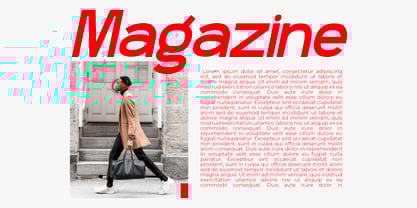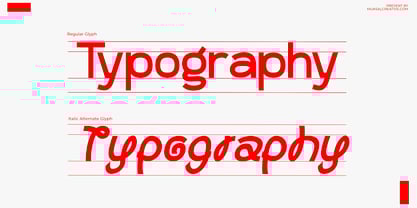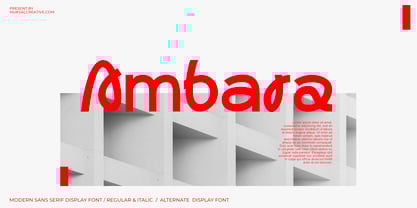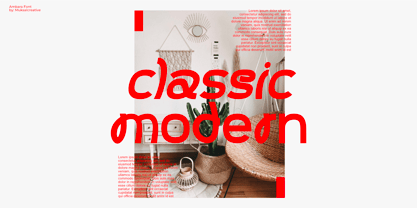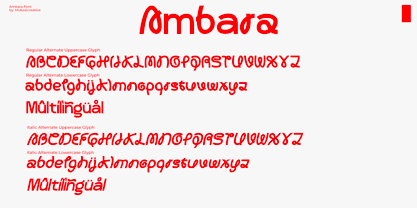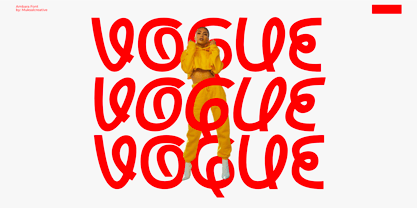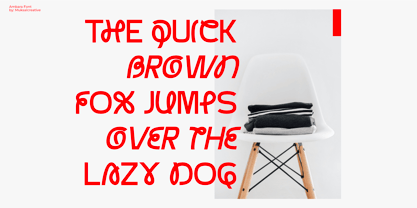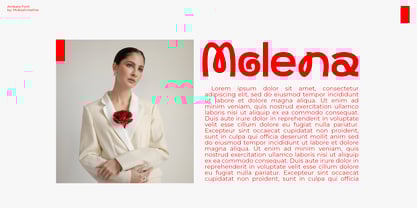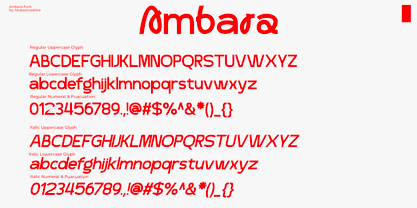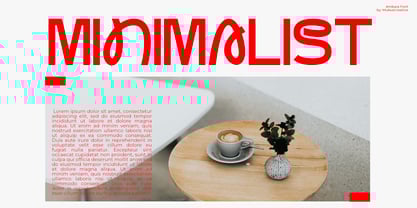
Ambara
by Muksal Creatives
The Ambara Font Family was designed by Muksalmina and published by Muksal Creatives. Ambara contains 2 styles and family package options. More about this family
Ambara is a modern sans-serif font with an elegant and futuristic display alternative touch. Designed to emphasize clarity and sophistication, Ambara combines bold lines with smooth curves, creating a perfect balance between strength and subtlety. This font offers a variety of alternate glyphs, allowing for limitless creativity in design, making it ideal for headlines, branding, or projects that require a modern and dynamic touch.
With its unique characteristics, Ambara is here to deliver a professional yet attention-grabbing impression. It is particularly suitable for projects that aim to showcase a strong identity, such as logos, posters, or visual campaigns that demand high impact. Ambara is the perfect choice for designers seeking a font with a strong personality and high flexibility.
Ambara comes in two styles: Regular and Italic, providing even more versatility for creative projects. Whether used for bold statements or sleek designs, this font adapts effortlessly to various design needs.